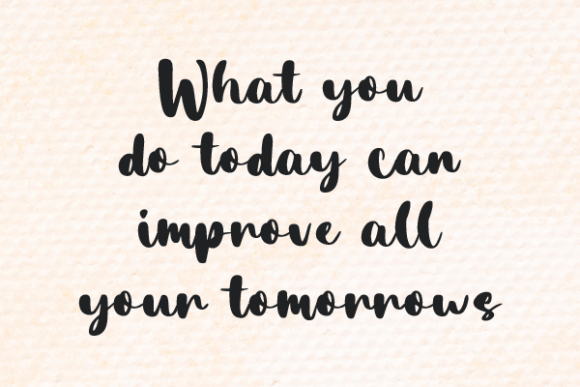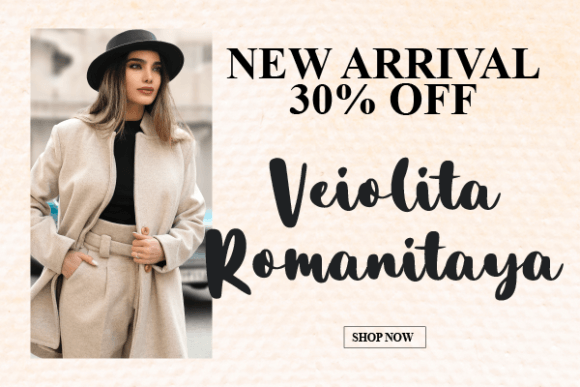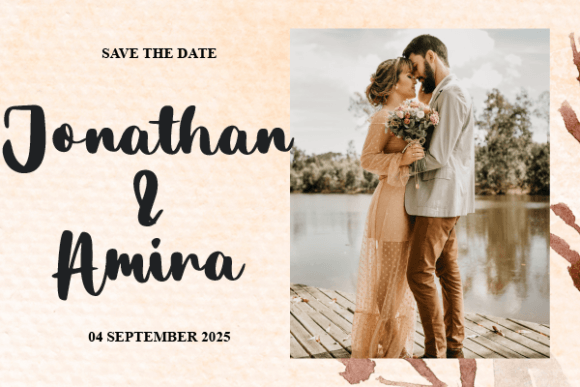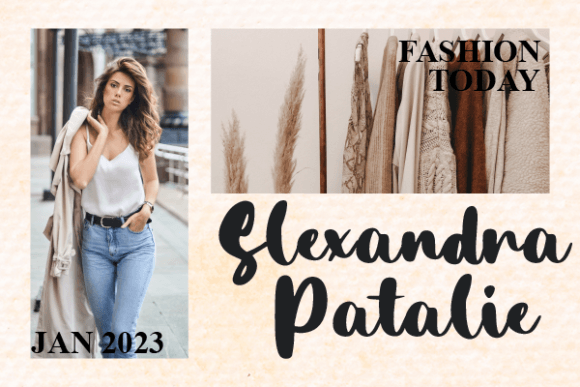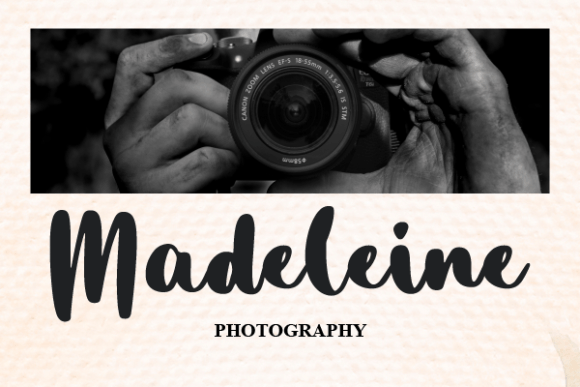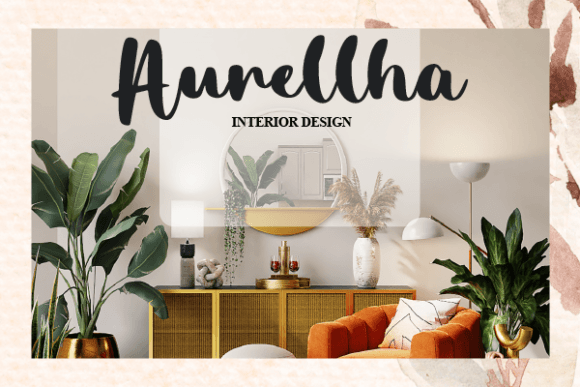
Discover the Elegance of Barbara Font: Elevate Your Designs with Style
Are you on the lookout for a font that exudes style, elegance, and sophistication? Look no further than Barbara Font, a stunning handwritten font that is sure to take your designs to the next level. With its smooth curves and refined aesthetic, Barbara is the perfect choice for fashion branding, editorial designs, and any project that demands a touch of luxury.
What Makes Barbara Font So Special?
Barbara Font is a masterpiece of typographic design, boasting a unique blend of elegance and playfulness. Its smooth, flowing curves give it a distinctly feminine touch, making it an ideal choice for designs that require a sophisticated and refined look. Whether you’re working on a fashion brand, a magazine, or a high-end product, Barbara Font is sure to impress.
Key Features of Barbara Font
- Smooth Curves: Barbara Font’s defining feature is its smooth, flowing curves that give it a distinctly elegant look.
- Handwritten Style: With its handwritten style, Barbara Font adds a touch of personality and warmth to any design.
- Fashionable: Perfect for fashion branding, Barbara Font is sure to elevate your designs and give them a high-end feel.
- Editorial Quality: Barbara Font’s refined aesthetic makes it an excellent choice for editorial designs, such as magazines and newspapers.
Endless Possibilities with Barbara Font
One of the best things about Barbara Font is its versatility. With its elegant and refined aesthetic, the possibilities are endless. Here are just a few ideas to get you started:
- Fashion Branding: Use Barbara Font to create stunning fashion branding, including logos, business cards, and packaging.
- Editorial Designs: Add a touch of elegance to your editorial designs, such as magazines, newspapers, and books.
- Wedding Stationery: Barbara Font is perfect for wedding stationery, including invitations, menus, and place cards.
- Product Packaging: Elevate your product packaging with Barbara Font, giving your products a high-end feel.
Tips for Using Barbara Font
To get the most out of Barbara Font, here are a few tips to keep in mind:
- Use it Sparingly: While Barbara Font is stunning, it’s best used sparingly to avoid overwhelming the design.
- Pair it with Neutrals: Barbara Font pairs beautifully with neutral colors, such as black, white, and gray.
- Experiment with Sizes: Don’t be afraid to experiment with different sizes to add visual interest to your design.
In conclusion, Barbara Font is a stylish and incredibly elegant handwritten font that is sure to elevate your designs. With its smooth curves and refined aesthetic, it’s perfect for fashion branding, editorial designs, and any project that demands a touch of luxury. So why wait? Download Barbara Font today and explore its endless possibilities.